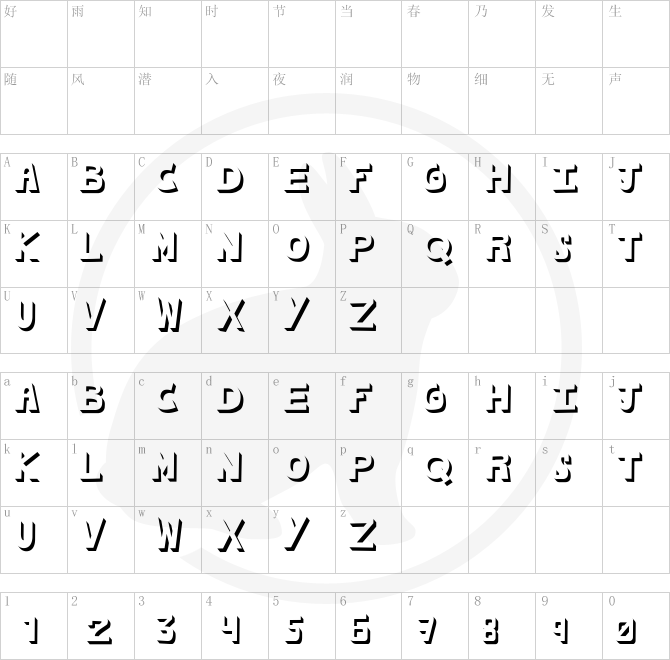
- Font Name:cachetona
- Full Name:cachetona llena
cachetona-llena.ttf is a very beautiful artistic font, cachetona-llena.ttf is widely used in the design and printing of various books and pictures,cachetona-llena.ttf has a strong visual impact,cachetona-llena.ttf is a commonly used font in newspapers, magazines and books, and is used in posters, e-commerce Poster design, store design, logo design, font design and other fields.cachetona-llena.